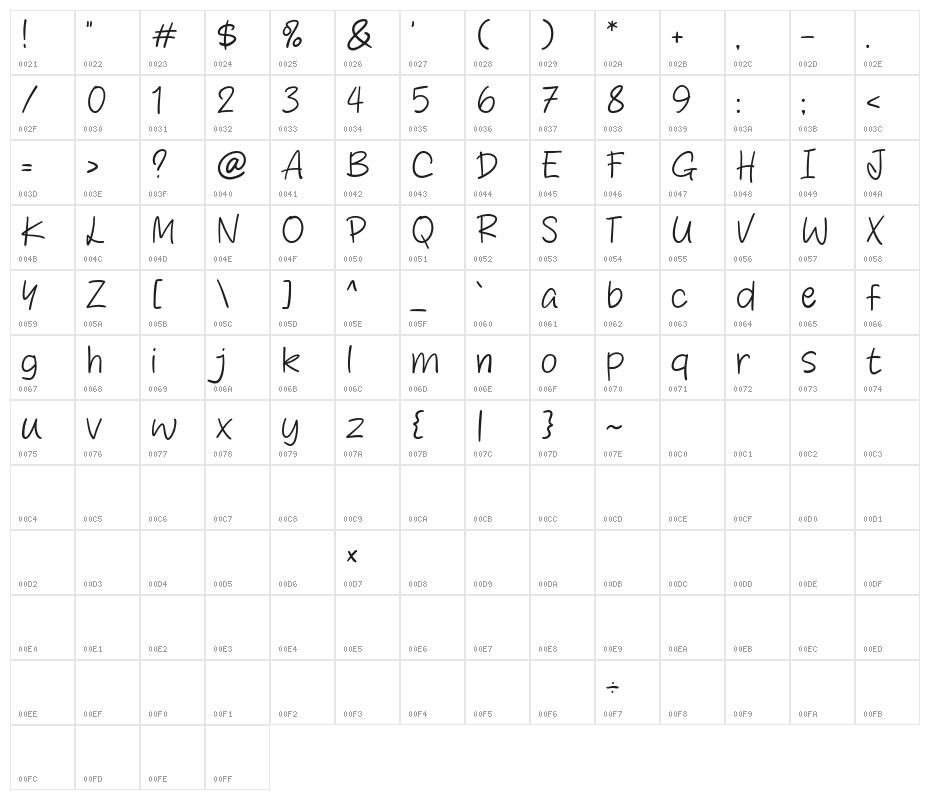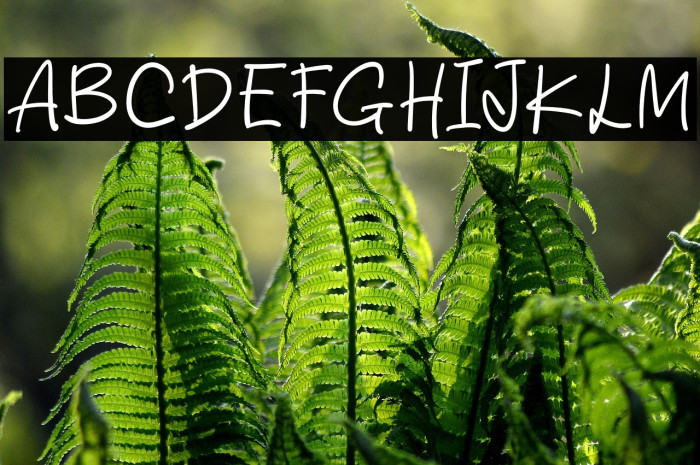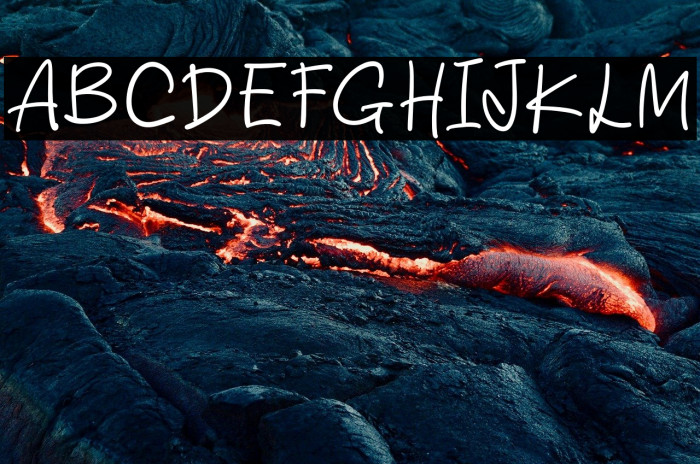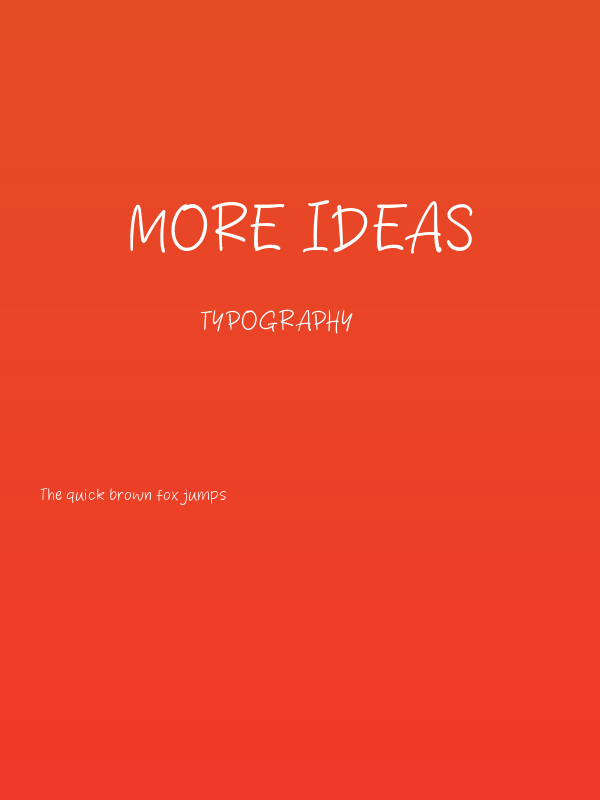
More Ideas Font
More Ideas Description
This font features a playful and casual handwritten style, characterized by its smooth, flowing lines and slightly irregular shapes that mimic natural handwriting. The letters are well-spaced, providing a clear and legible appearance, while maintaining a friendly and approachable vibe. The strokes are consistent in width, offering a balanced and harmonious look. This font is versatile, suitable for a variety of creative projects that require a personal touch.
| Overall Style | Casual |
| Use Case | Headlines, Informal text, Creative projects |
| Proposed Projects | Ideal for greeting cards, personal invitations, children's books, and creative branding. |